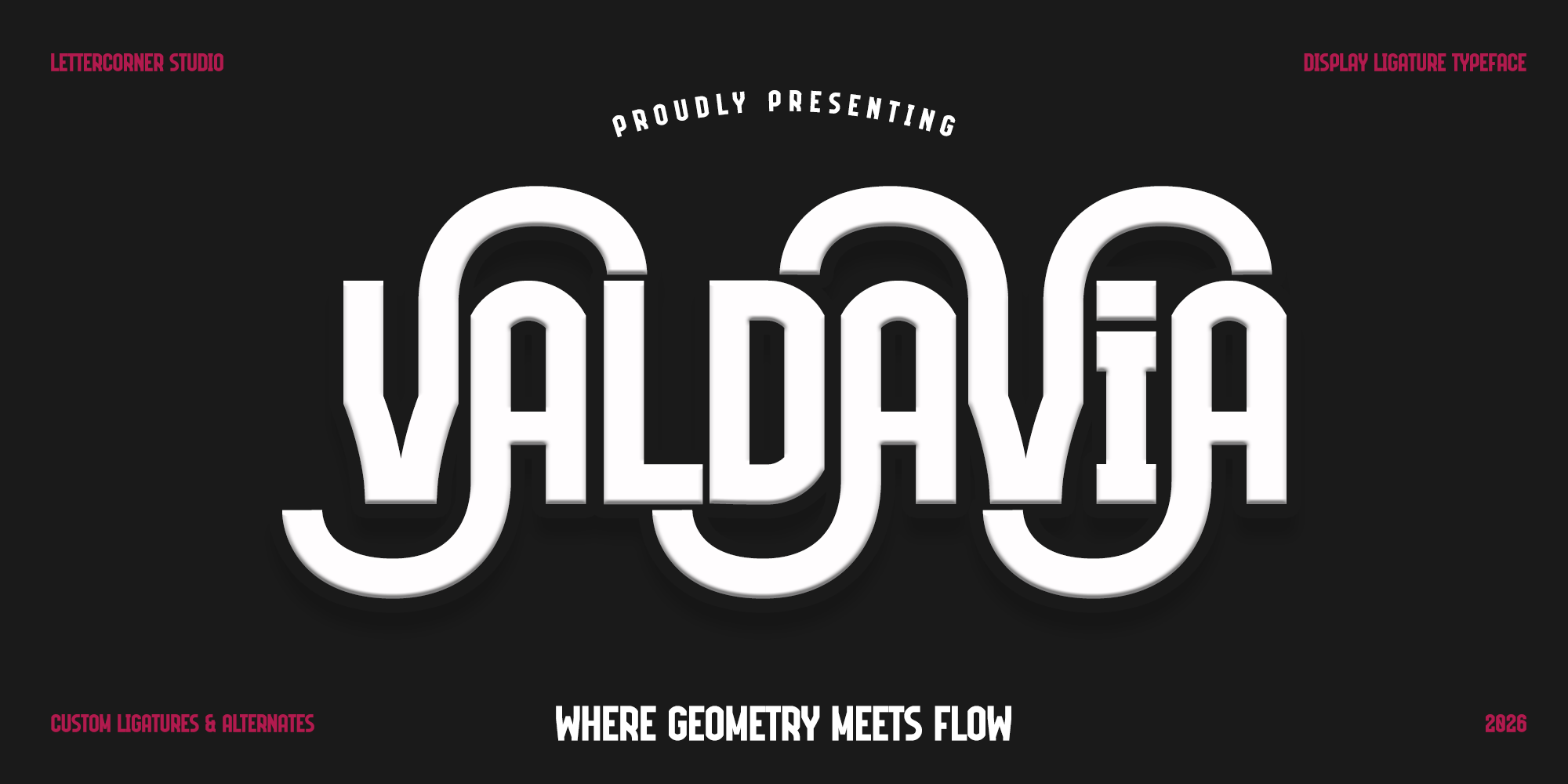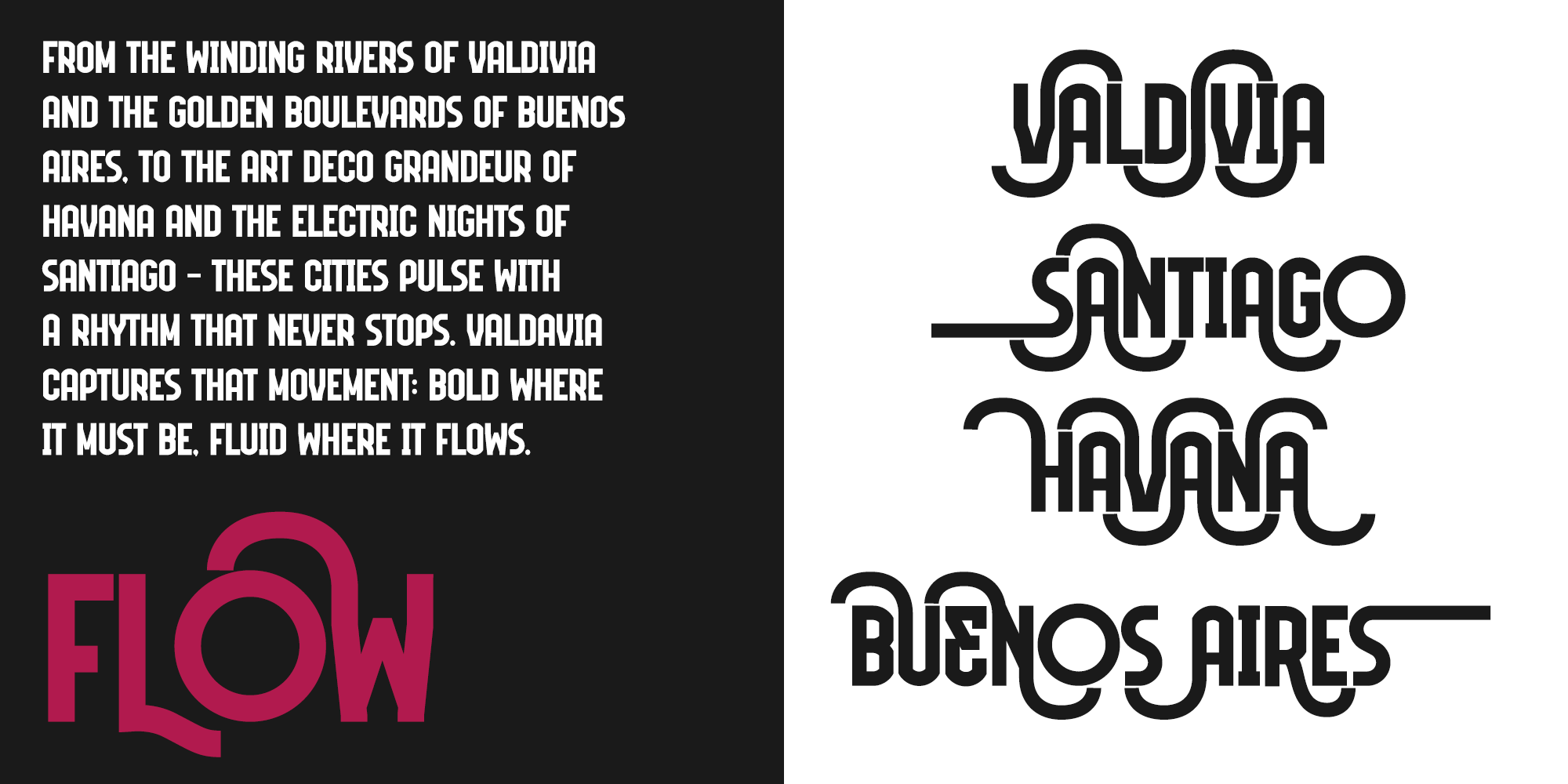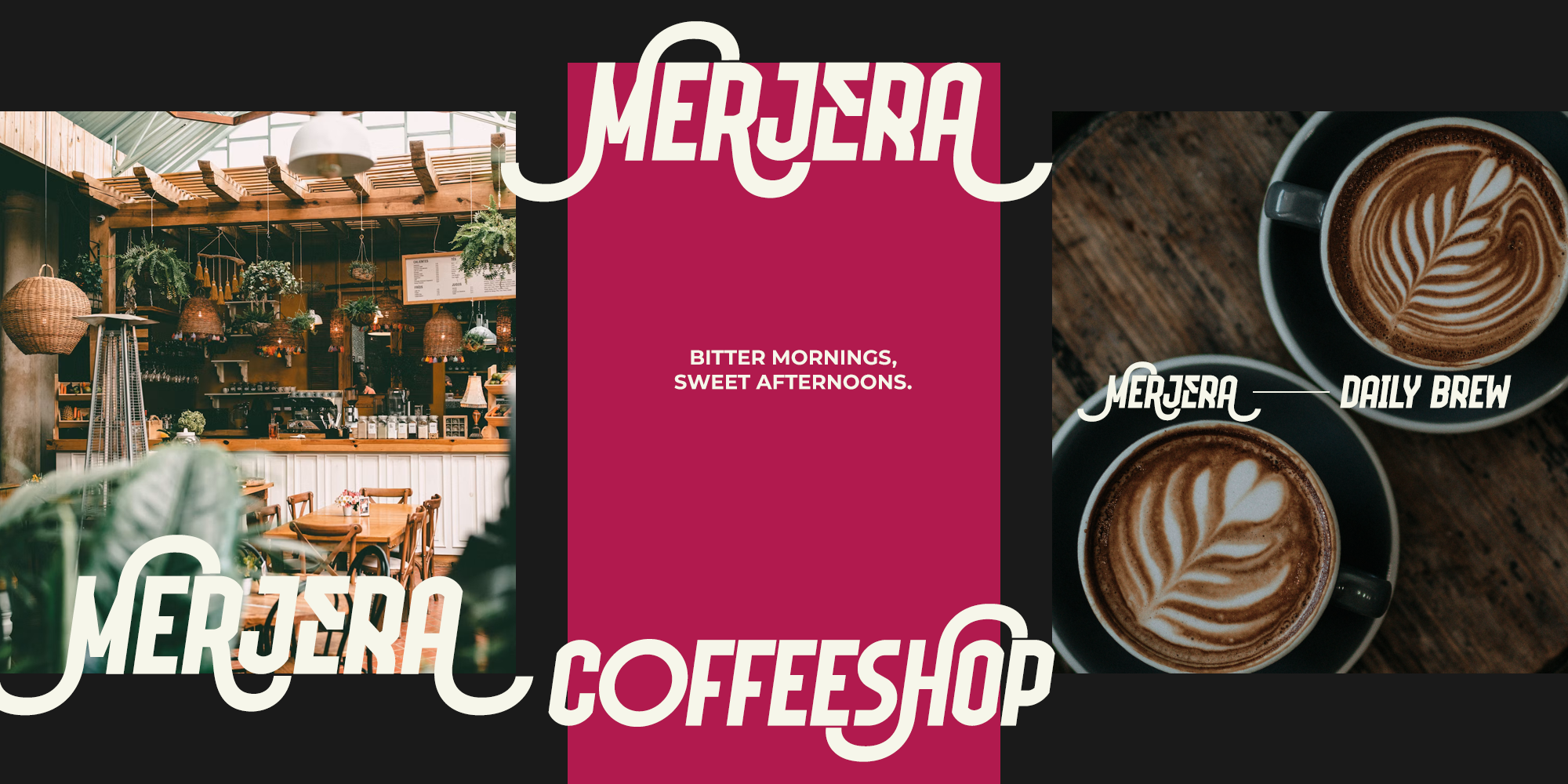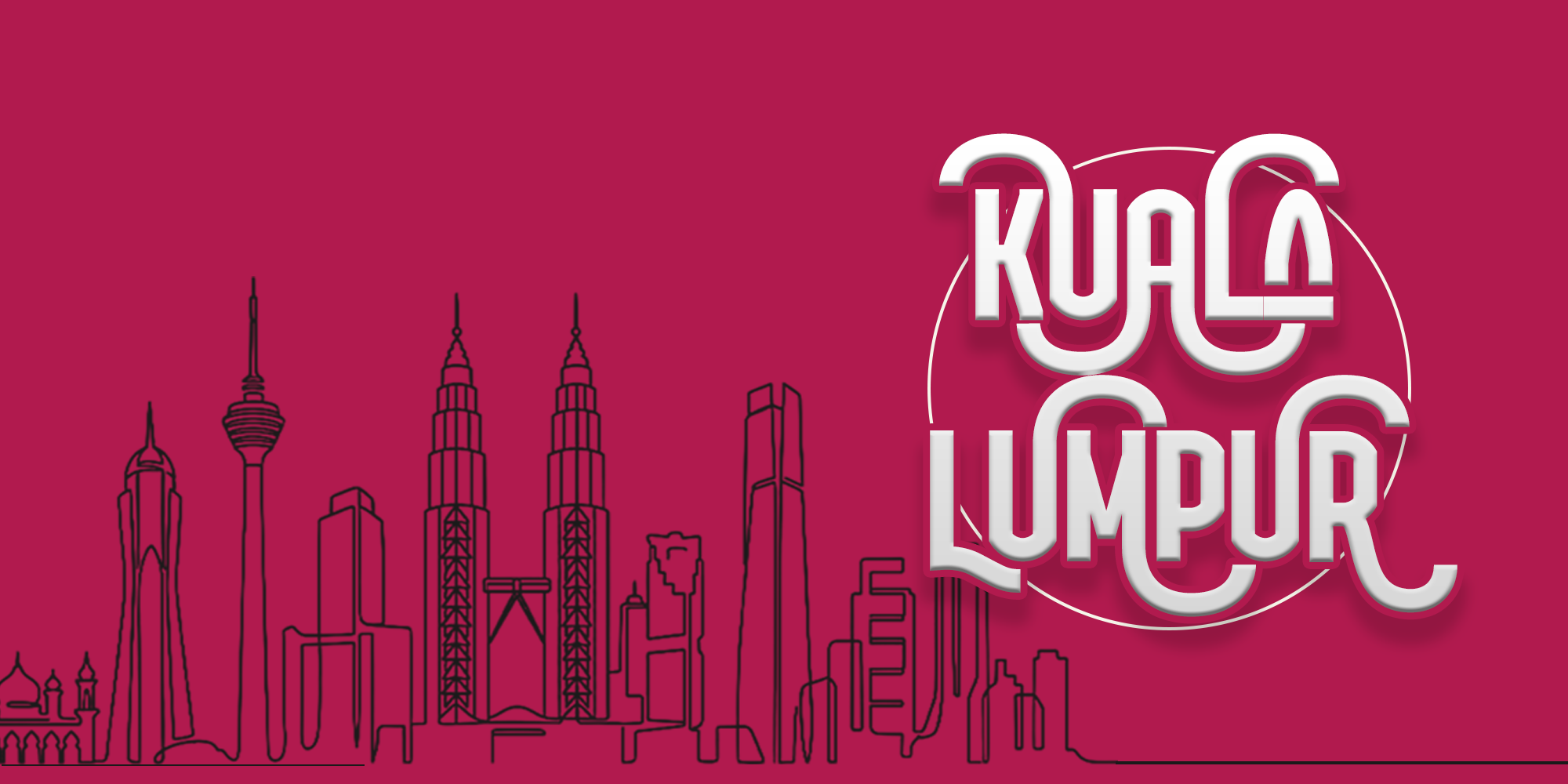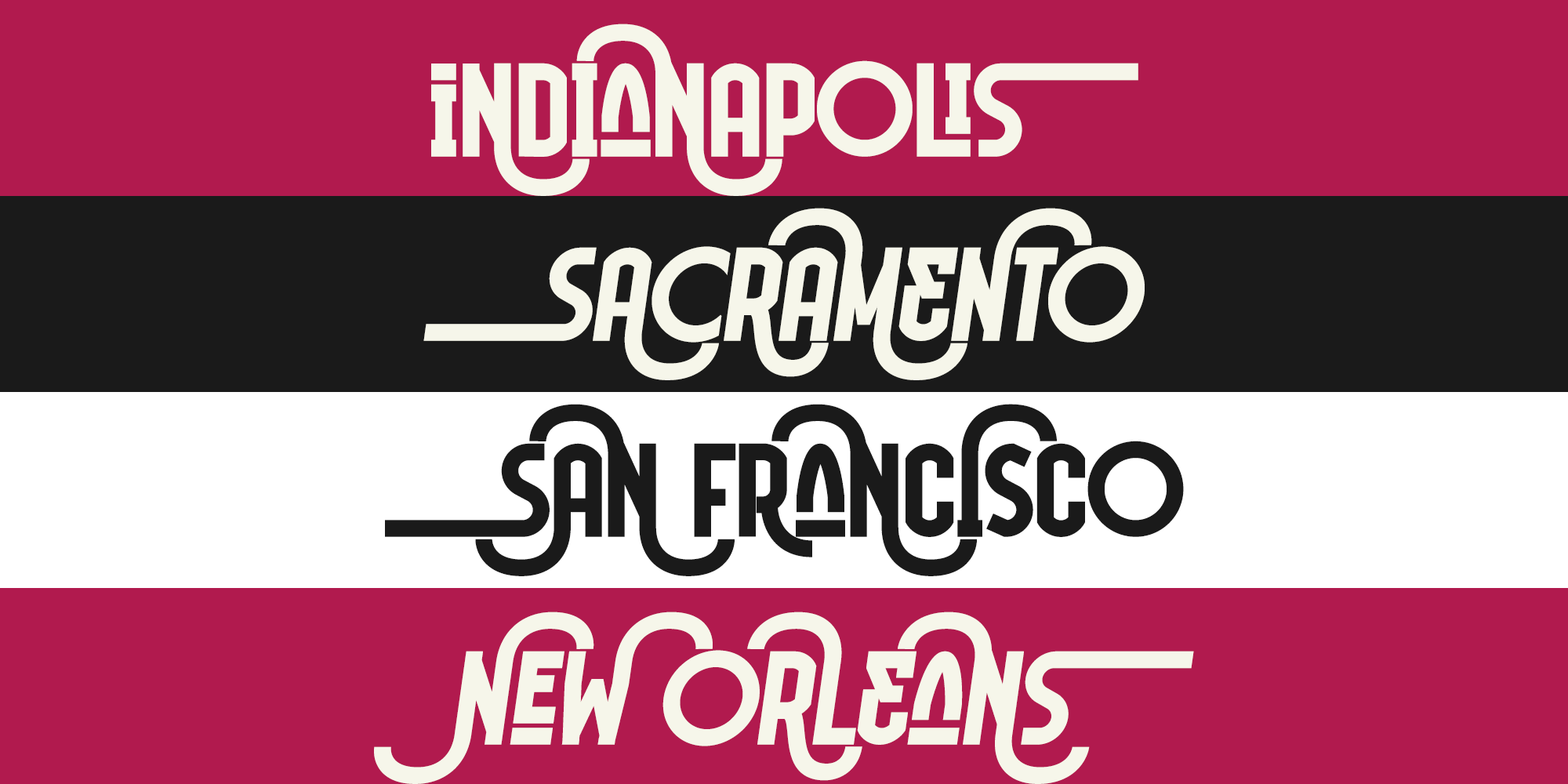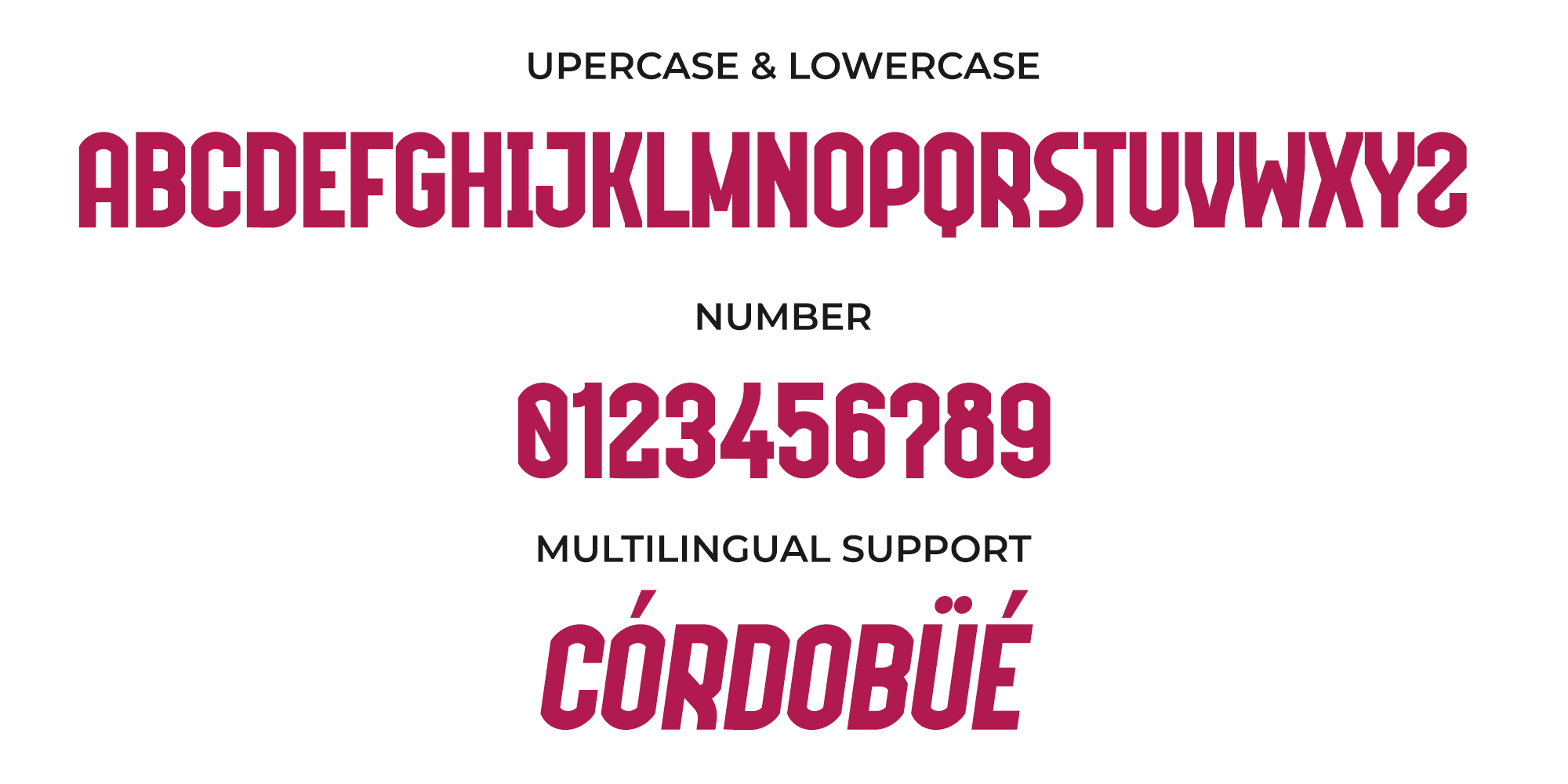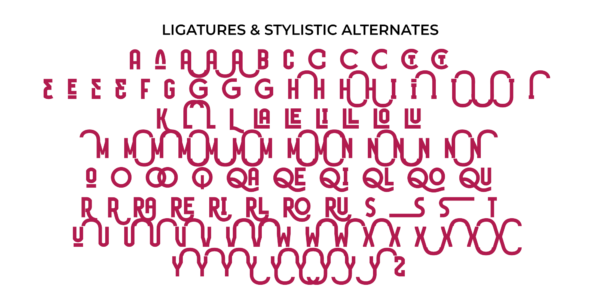
Valdavia — Elegant Bold Display Font
Inspired by Valdavia, a historic river valley in the Castile and León region of Spain, where the RÃo Valdavia winds for 71 kilometers through small villages such as Congosto de Valdavia and Buenavista de Valdavia. This quiet yet sturdy rural landscape is the spirit behind the font — a character that feels grounded, warm, and deeply rooted. Wikipedia
Valdavia is a display font with a strong character and an unforgettable personality. Built on letterforms that are bold yet organic, Valdavia delivers a tone that is both assertive and warm — a blend of the sturdy old structures found across the Valdavia valley and the natural flow of its river. Every curve feels alive, carrying the trace of a long journey from the foothills of the Sierra del Brezo down to the lowlands, flowing onward without losing its strength.
With 462 glyphs including full Latin character support, Valdavia is designed for large scales — headlines, covers, branding, and any situation where typography needs to speak before the words are even read. Its bold structure gives a sense of stability and reliability, while its organic details keep every letter feeling warm and human.
Available in 2 styles:
- Regular — a bold form with full character, assertive and grounded
- Italic — a slanted version that adds movement, as if following the winding yet purposeful flow of a river
Perfect for branding, posters, logos, apparel, and editorial headlines that demand a visual presence that lingers — as strong as the history rooted in its name, and as smooth as the river that inspired it.